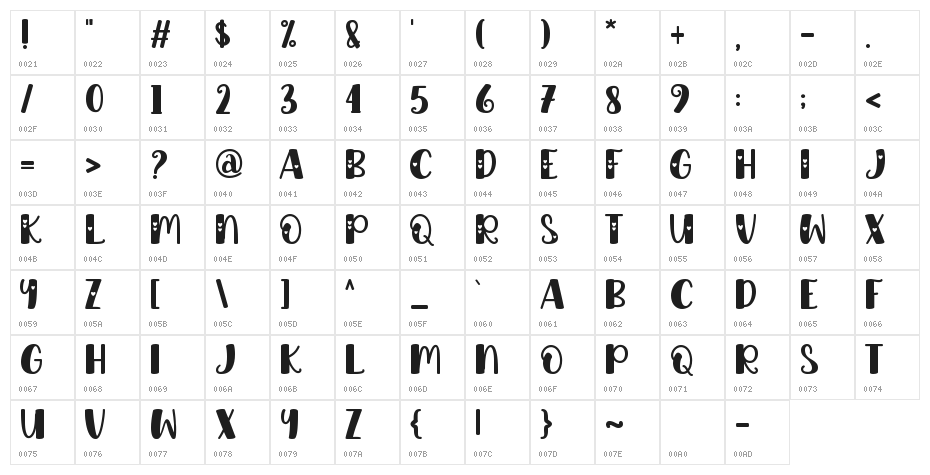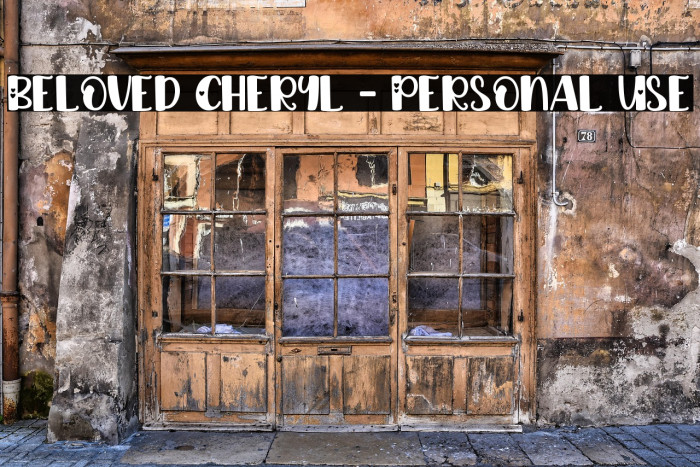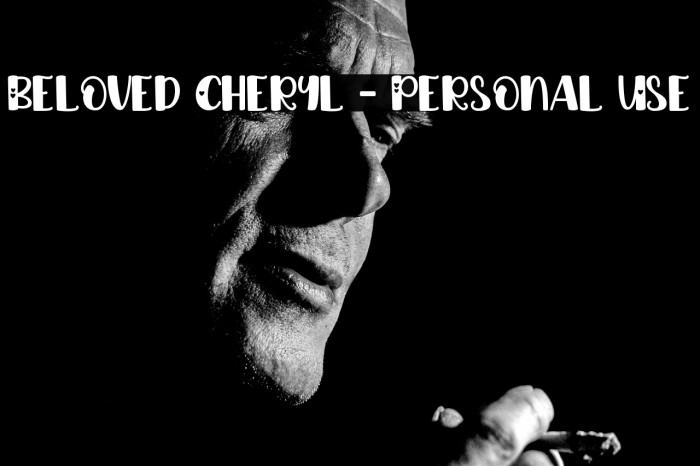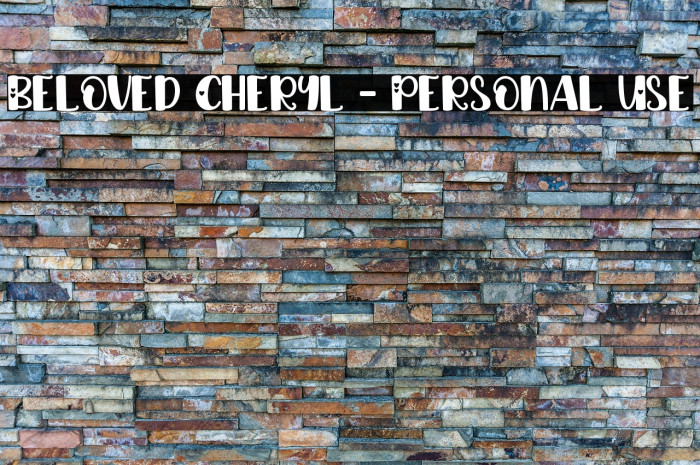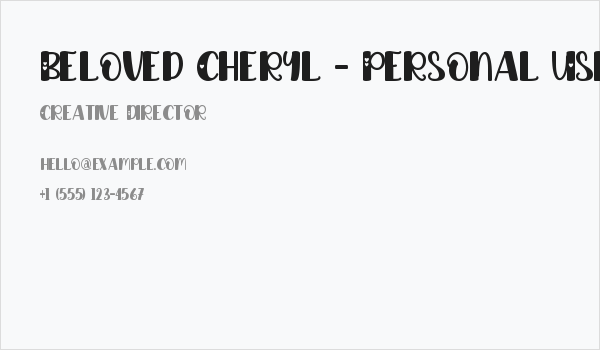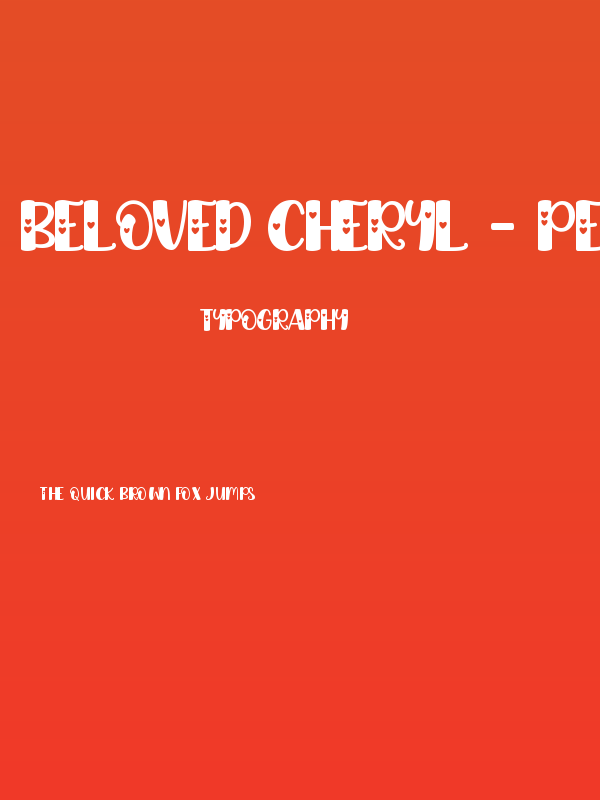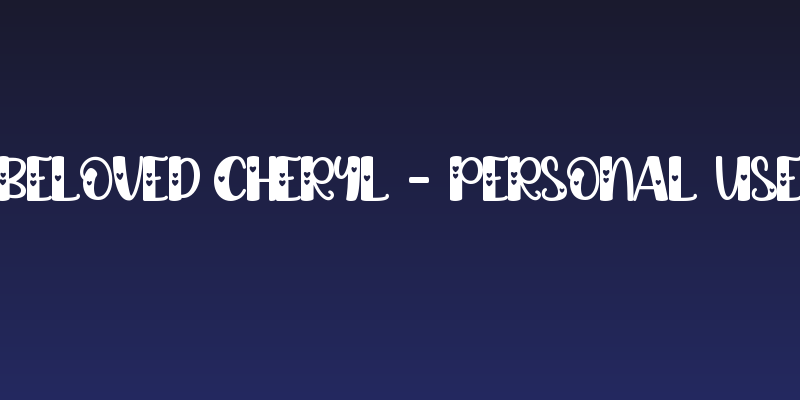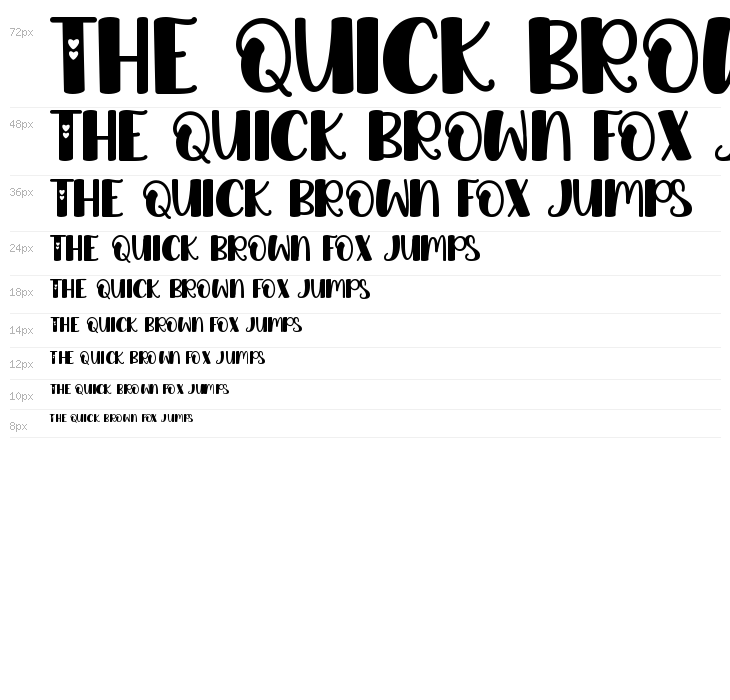
Beloved Cheryl - Personal Use Font
Beloved Cheryl - Personal Use Description
This playful and decorative font features bold, rounded characters with whimsical heart-shaped cutouts within the letters, adding a charming and romantic touch. The uppercase and lowercase letters maintain a consistent style, with a slightly exaggerated width that enhances its playful nature. The numbers and special characters follow the same design principles, ensuring a cohesive look across all glyphs. The font's boldness and unique design make it highly suitable for projects that require a fun and engaging aesthetic.
| Proposed Projects | Ideal for greeting cards, children's book covers, playful branding, and event invitations. |